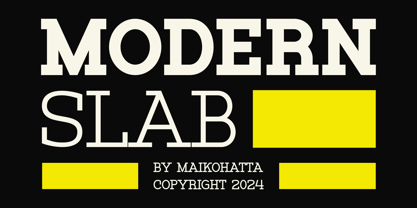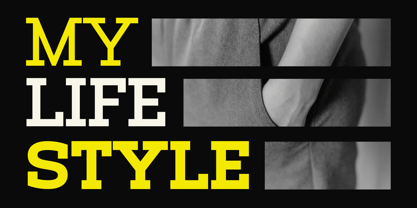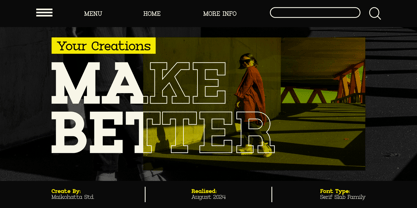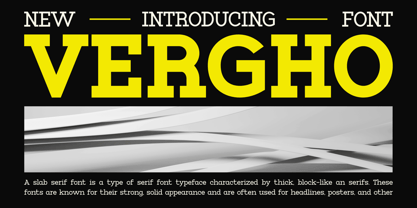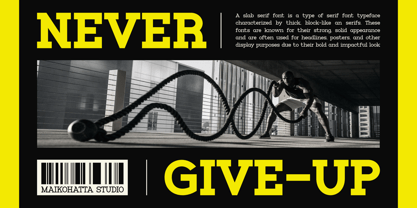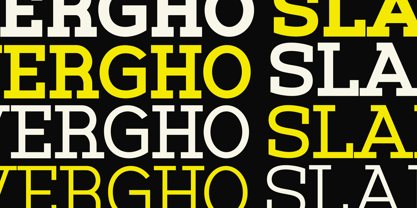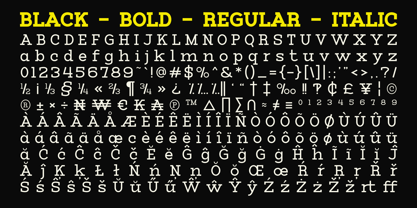
Vergho
by Maikohatta
The Vergho Font Family was designed by Gilang Ternadho and published by Maikohatta. Vergho contains 4 styles and family package options.
Introducing our new product Vergho - Modern Slab Serif
This font has a series of small or decorative projections called serifs at the ends of its characters. Serifs provide a more formal, modern, and easy-to-read appearance to printed text. Serif fonts are often used in formal documents, books, and print publications because of their good legibility at small text sizes.
Designers: Gilang Ternadho
Publisher: Maikohatta
Foundry: Maikohatta
Design Owner: Maikohatta